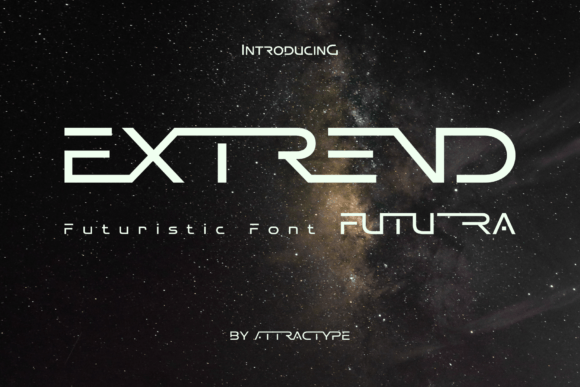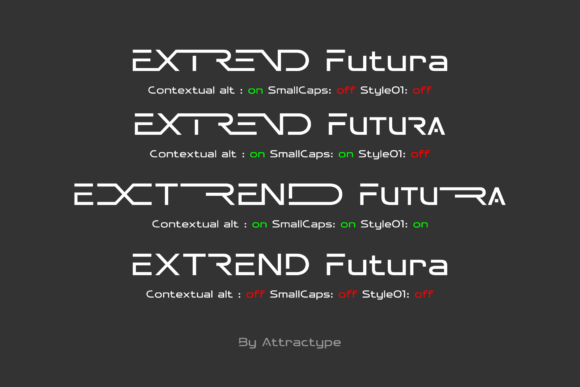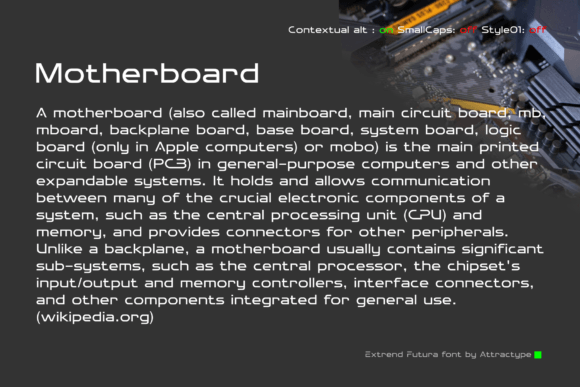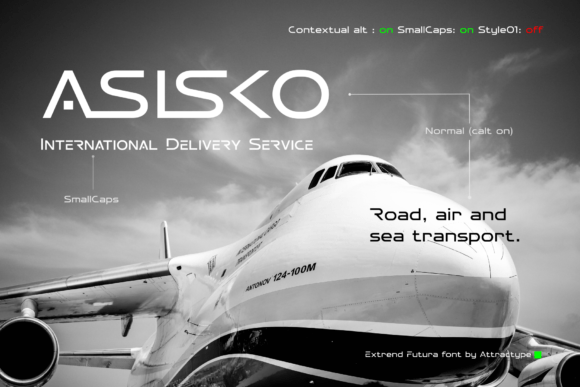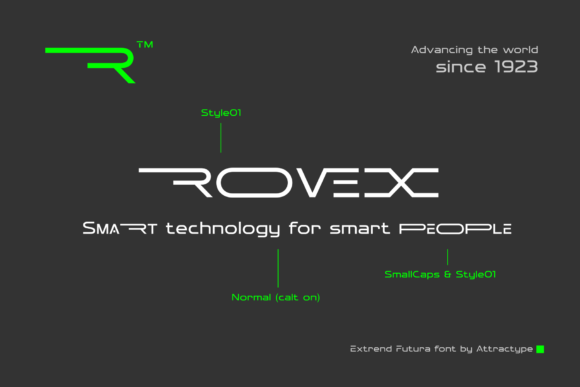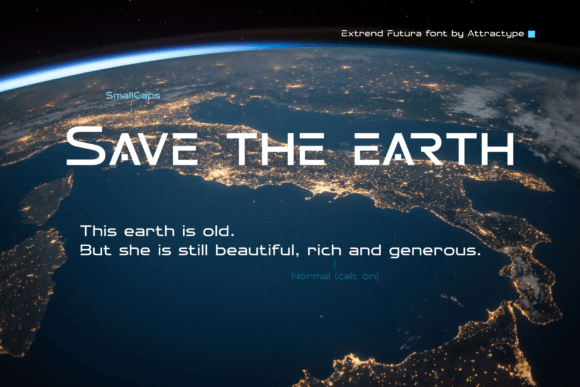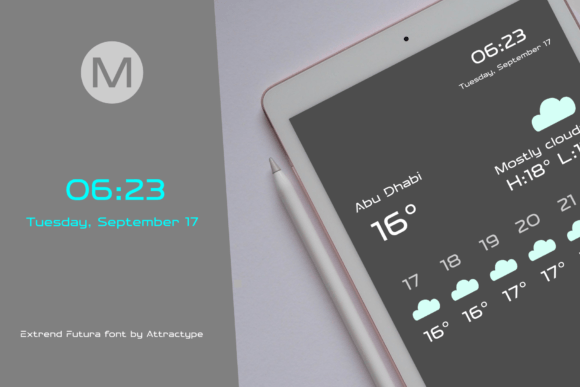
Unlock the Future of Design with Extrend Futura Font
Have you ever stared at a blank page, waiting for inspiration to strike? Maybe it’s a project that’s been lingering for weeks, or a design concept that just isn’t quite coming together. For many creatives, the struggle is real – but what if we told you that the key to unlocking your next big idea lies in the power of a single font?
Enter the Extrend Futura Font, a sleek and modern sans-serif font that’s about to revolutionize the way you design. With its bold edges and futuristic feel, this font is the perfect tool for creating eye-catching visuals and captivating designs that will leave a lasting impression. Whether you’re a seasoned pro or just starting out, the Extrend Futura Font is the ultimate game-changer for designers looking to take their work to the next level.
Key Features of Extrend Futura Font
- Font Family: Extrend Futura Font is a sans-serif typeface designed for modern and futuristic designs.
- Font Size: Extends from 8pt to 144pt, making it suitable for a wide range of applications, from small text to large headings.
- Resolution: Optimized for high-resolution displays, including 4K and Retina screens, ensuring crisp and clear typography.
- Unique Characteristics: The font features a unique blend of geometric and organic shapes, giving it a futuristic and dynamic feel.
- Language Support: Supports a wide range of languages, including Latin, Cyrillic, and Greek alphabets, making it a versatile choice for global designs.
Extrend Futura Font Review
As a designer, I’ve had the chance to work with various fonts, and my experience with Extrend Futura has been quite interesting. Here’s my honest take on it.
- Modern and sleek aesthetic: Extrend Futura has a clean, futuristic design that’s perfect for tech-related projects or anything that needs a modern twist.
- Legibility: The font is easy to read, even at smaller sizes, making it suitable for body text or headings.
- High-resolution support: I’ve used Extrend Futura for both web and print projects, and it scales well in various resolutions.
- Limited character set: While the font has a wide range of letters and symbols, it’s missing some characters that might be essential for certain projects.
- Not ideal for small text: While legibility is good, the font’s design might make small text appear less clear or even fuzzy at times.
- Lack of versatility: Extrend Futura is quite distinct and might not be the best choice for projects that require a more neutral or traditional font.
Overall, Extrend Futura is a solid choice for modern, tech-related projects. However, its limitations make it less versatile and might not be the best fit for every design task.
Extrend Futura Font Practical Application Guide
Getting the Most Out of Extrend Futura Font
To get the most out of Extrend Futura Font, consider the following tips:
- Pair it with bold or italic fonts for added emphasis.
- Use it for titles, headings, and other attention-grabbing text.
Extrend Futura Font is commonly used for:
- Vintage-style illustrations and graphics to create a retro-futuristic feel
- Gradients and neon colors to add a touch of modernity
- Geometric shapes and patterns to create a dynamic composition
- Neon colors and gradients to create a futuristic feel
- Geometric shapes and patterns to add visual interest
- Minimalist graphics and icons to create a clean composition